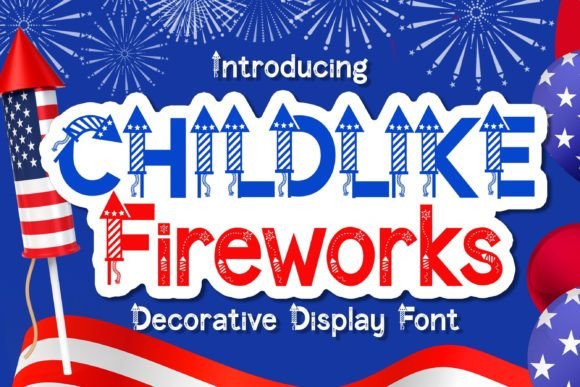
Introducing Childlike Fireworks, the captivating font that will ignite your creativity and elevate your designs to new heights. Immerse yourself in a world of whimsical imagination and playful expression with this modern decorative display font, meticulously crafted by the skilled artisans at V Design Stock.
Unleash your inner child and embark on a typographic adventure with Childlike Fireworks. Its unique and eye-catching design is a perfect match for any project that demands attention, from vibrant posters and cheerful headlines to captivating branding and enchanting invitations. Let your imagination soar and create designs that burst with personality and leave a lasting impression.
With its meticulously crafted characters and impeccable attention to detail, Childlike Fireworks adds a touch of magic to every word. Its playful and modern aesthetic invites you to experiment and push the boundaries of creativity, resulting in designs that are both captivating and unforgettable.
But Childlike Fireworks is more than just a font; it's a key that unlocks a world of creative possibilities. Perfect for display boards, this font commands attention and makes your message stand out from the crowd. Its unique design guarantees that your words will resonate with your audience, leaving an impact that lingers long after they've finished reading.
Imagine the excitement of your audience as they encounter your designs adorned with Childlike Fireworks. Its vibrant and captivating characters will draw them in, inviting them to explore your message and connect with your brand on a deeper level. With this font as your ally, you'll captivate your audience and leave a lasting impression that will fuel your success.
Let Childlike Fireworks ignite your designs and spark a creative revolution. Its playful spirit and modern aesthetic are the perfect ingredients for unforgettable designs that will leave your audience mesmerized. Embrace the magic of Childlike Fireworks today and watch your creativity soar to new heights.